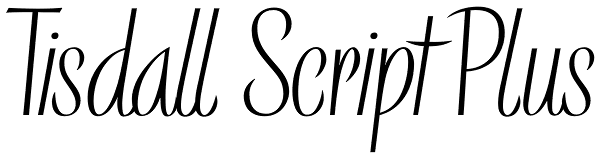
Tisdall Script
Tisdall Script is based upon the brush-drawn script lettering of Hans Tisdall, who was the designer of many distinctive lettered book jackets for Jonathan Cape in the 1950s. Michael Harvey, also a designer of lettered book jackets, long admired...